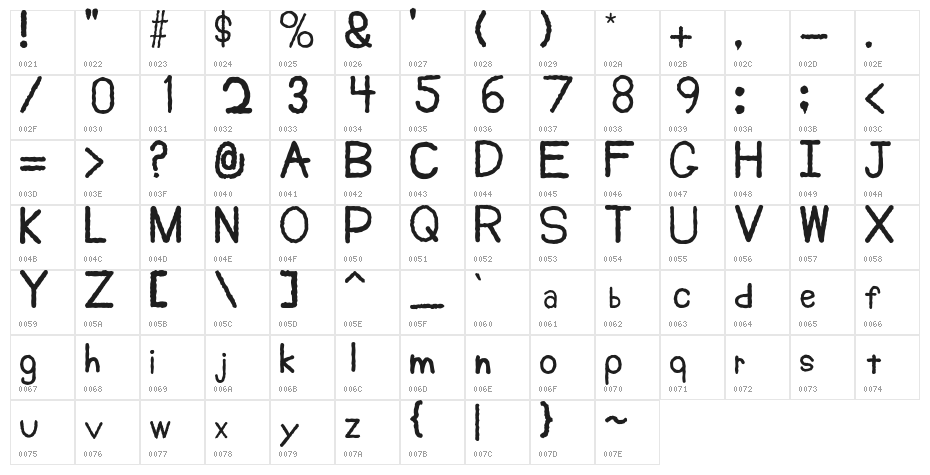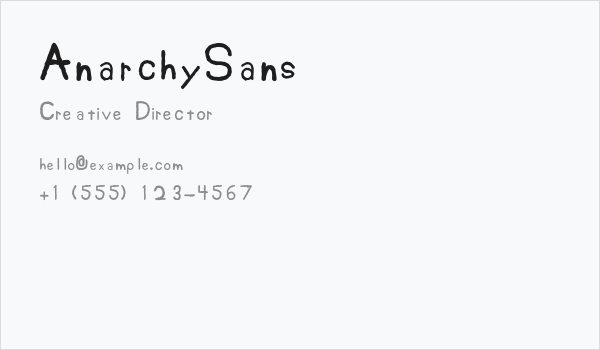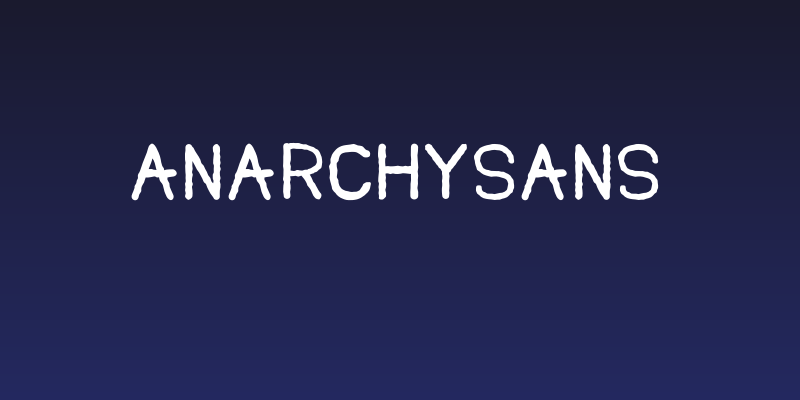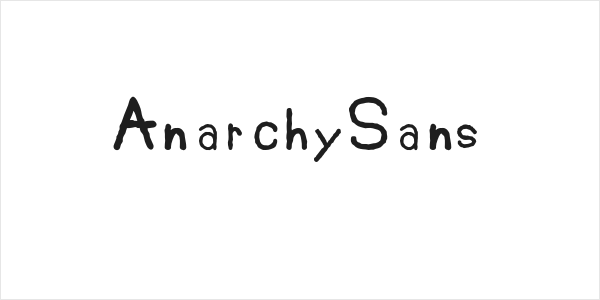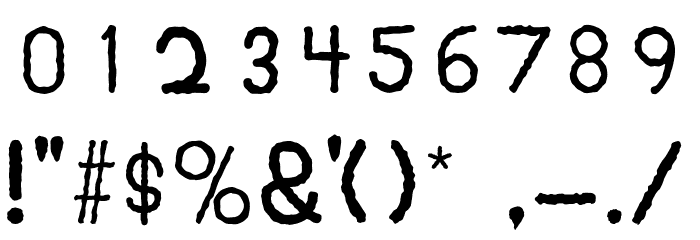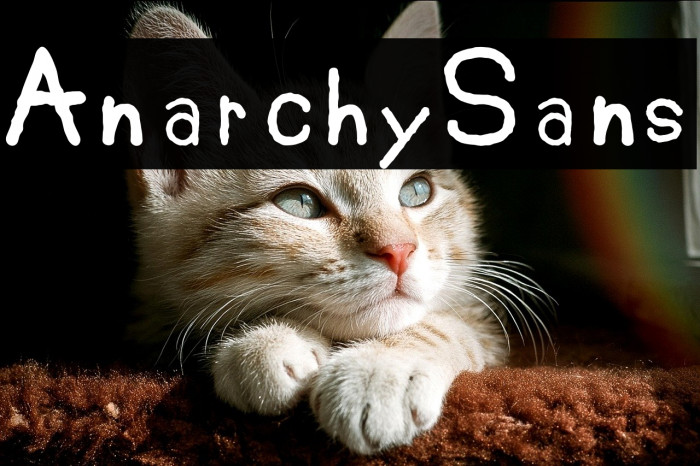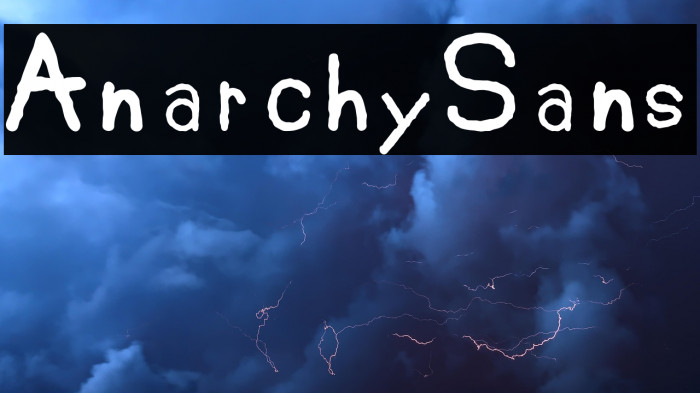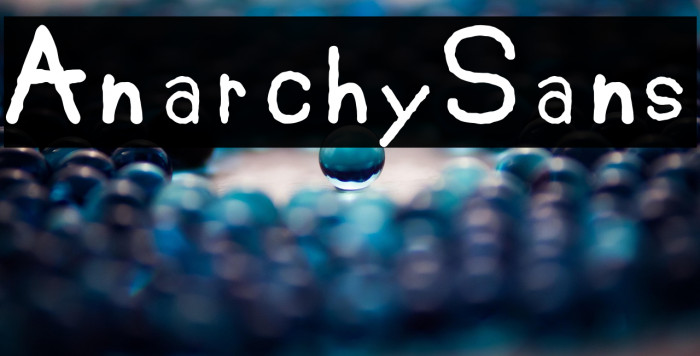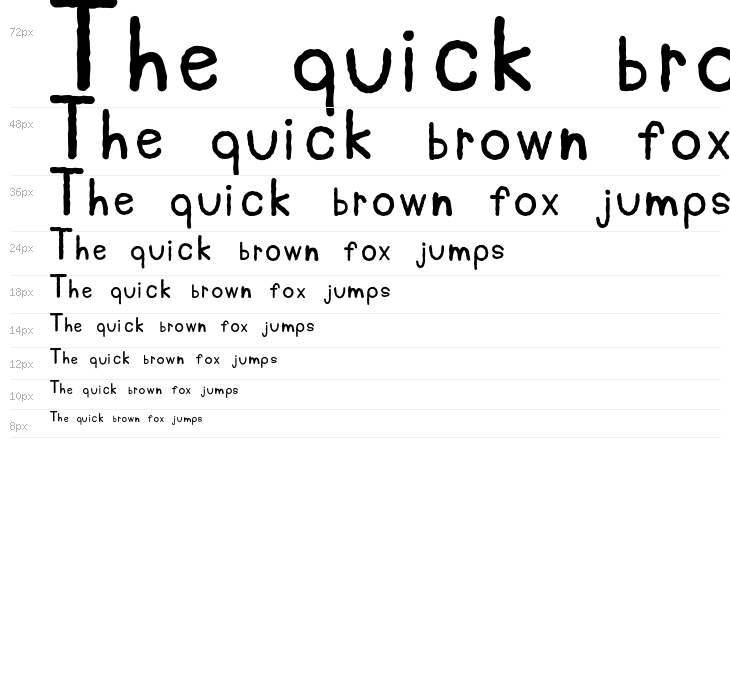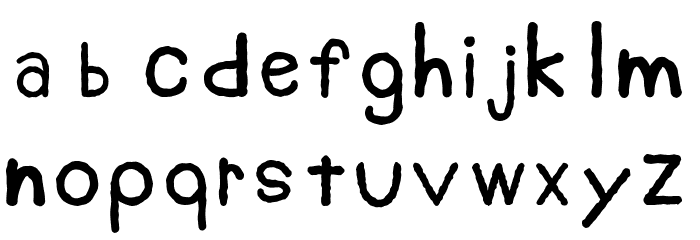
AnarchySans Font
AnarchySans Description
This font features a rough, hand-drawn style that evokes a sense of rebellion and individuality. The letters are uneven and slightly distorted, giving them a unique, organic appearance. The uppercase and lowercase characters maintain a consistent style, with rounded edges and irregular line thickness. Numbers and special characters follow the same aesthetic, contributing to the font's cohesive look. The overall design is casual and informal, making it suitable for projects that require a touch of edginess or a handmade feel.
| Use Case | Logos, Posters, Headlines |
| Proposed Projects | Ideal for punk-themed posters, album covers, DIY zines, and alternative branding projects. |